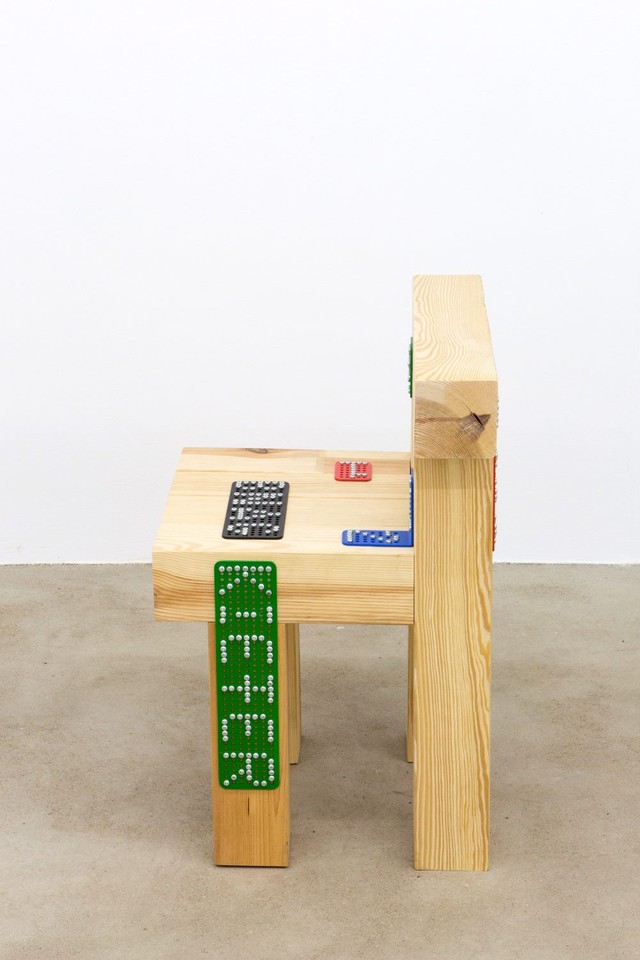
There’s a lot to talk about. —
Maddy here this time, I’m editor at Dinamo. I’ll be briefly taking over from our usual newsletter writer to introduce a survey we’ve just launched about money and emotions. We co-wrote it with our friends at Nea-Kosma.
I worked as a journalist for ten years before joining Dinamo and have long been interested in how anonymously submitted data can make difficult conversations more transparent on the internet. A difficult topic orbiting our studio lately has been why it’s so hard to talk about money — and all the frustration, rage, joy, fear, jealousy, desire, and more bundled up in the topic.
In the arts, wages are low and anxiety can feel like its at an all-time high. So as part of Dinamo Editions — our new publishing and research arm — we’re investigating the creative world’s feelings towards money.
In close collaboration with our partners Vanessa and Rea at business consultancy for creatives Nea-Kosma, we put together a Money & Emotions survey that digs deep into current feelings and personal backgrounds, exploring how and where the two meet. We hope you’ll take five minutes to anonymously respond to our questions.
By talking about money and emotions together and publishing the results in a report, we hope to empower our readers to know they’re not alone in complex feelings towards finance ♡
Tina, Rea, my dog Basket, and I in the Berlin studio. We're in the middle of putting together this report.
Vanessa and Rea getting lunch in Schillerkiez!
Rea and Vanessa's article on how people can shift money mindsets through taking a close look at their emotions
Dinamo Hardware: Unlocked @ Waste Space, London
As long we’ve existed, there’s been Dinamo Hardware. Our urban garden of tangible goods, where we escape after a day working on (font) software. After years of radio silence, as well as a 12 month long development period (in STEALTH MODE: you’re preparing for a marathon but can’t brag to anyone about it), we’re opening the doors again. And we’re opening them wide.
Please join us at the legendary Waste Store in London this September 20th where we’ll be launching our latest collection. It’s an entirely new line of products created by our Head of Hardware — master of sourcing, production, and slappy back-smiths Simon Merz — who has conspired with a range of artists and collaborators to bring you a candle? A pen? Soap? A zine? You’ll see! 🌋
C-O-N-N-E-C-T-O-R Launch @ HKW, Berlin
Johannes is giving a lecture at Forward Festival this September. Finally a stage big enough for his ego, ehem, I mean, for him to share his studio stories and work wisdom. Then, at the event’s expo (free entry for all), we’re building a spontaneous Hardware pop-up store in collaboration with our friends at BNAG studio.
Visitors are invited to come say hello, browse hardware, join in with the building, or even build furniture of their own.
We’ll be using the event to launch our ABC C-O-N-N-E-C-T-O-R-S — easy-to-use metal brackets that join together different materials for quick, resilient furniture making. Each unit contains a grid, which can be used to arrange screws into lettershapes. Our screw-inspired typeface, ABC C-o-n-n-e-c-t, will also make an appearance. We hope to meet you there and are excited to see what we build together :)
1, 2, 3 Chair by BNAG (Oliver-Selim Boualam and Lukas Marstaller)
You bring the vision, we bring the wood. We have six objects prepared that you can build during our Workshop-Shop
Bring your life insurance with you bitte ☝🏻
Johannes <John Travolta> Breyer in the HKW lecture auditorium. Photo: Eredi Caloi
Walter Caption Contest: Round #9
In each issue of The Dinamo Update, we provide a new Walter cartoon in need of a caption. You, the reader, can submit your caption by responding to this email or by commenting on our caption contest IG post. The best three responses win the complete Walter Alte.
Scroll on for the last round’s winners — as well as the new contest. Or take a take a look at our Walter Caption Contest Hall of Fame for all our past winning submissions.
This Month’s Contest
What are the Walters doing this time? Send us your caption to win!
Round 8 Finalists
Congratulations to our winners. Your files of ABC Alte Walter are on their way!
Studio Updates
Tina joined us full time as our new graphic designer 💕
Simon testing riso with Antonia at Earthbound Press in London
Michelle light-boxed and angle-twisted on our Hardware shoot
Fabian, Ariel, and Simon with Luis at Senhora Presidenta in Porto
Vani didn’t leave until ALL the VAT was done
Another mystery product in the pipeline
Liz Gorny at Its Nice That asked us some questions about our recent campaign for Gaisyr. Johannes told her: “The idea for the campaign comes from our fascination with TikTok and YouTube culture. I also once visited a geyser during a trip to visit my family in Chile when I was a kid, and people were roasting chicken on the steam coming out of the holes. We thought that Gaisyr has serifs that sprout out like a geyser, so the idea emerged from there.”